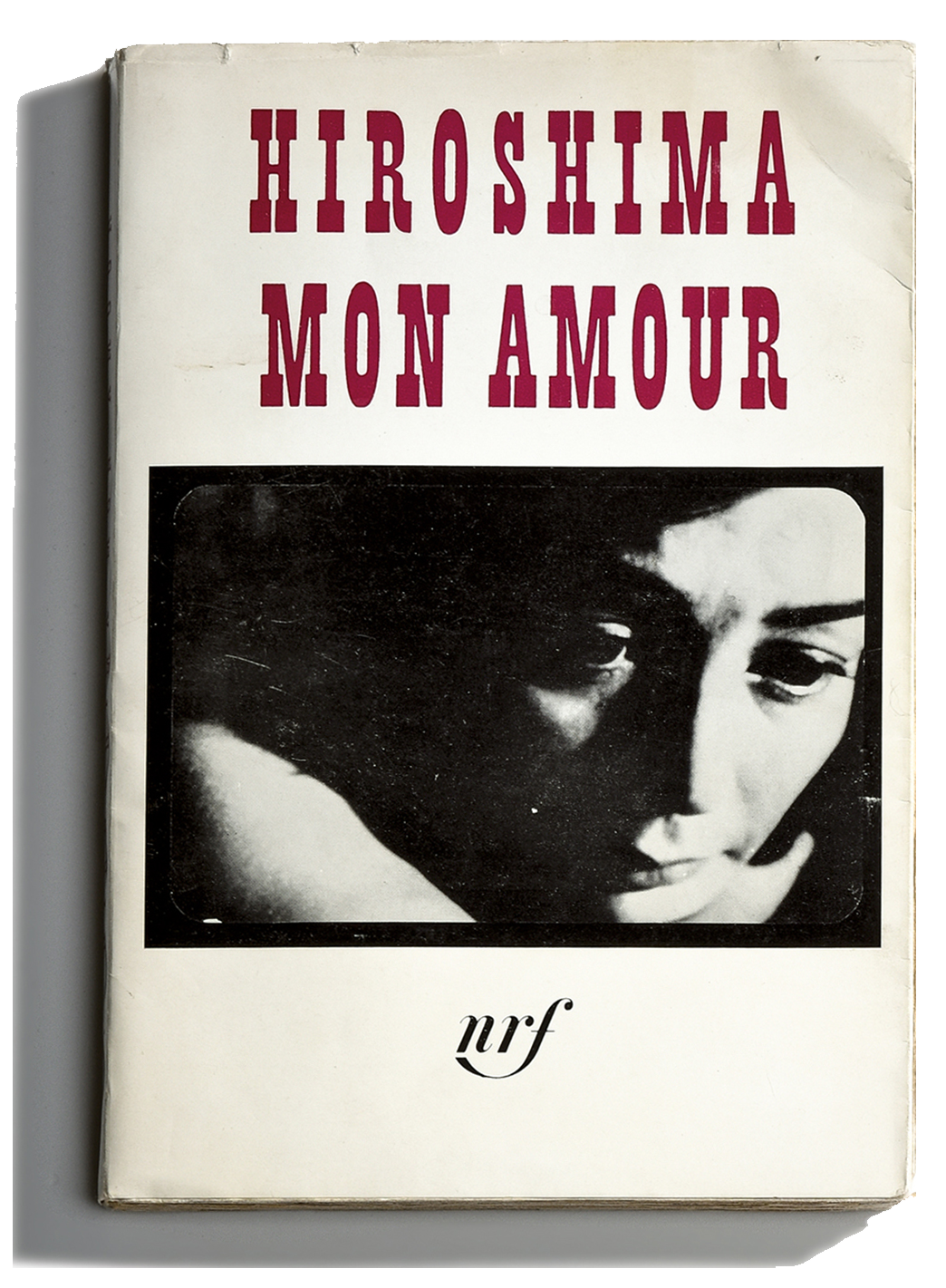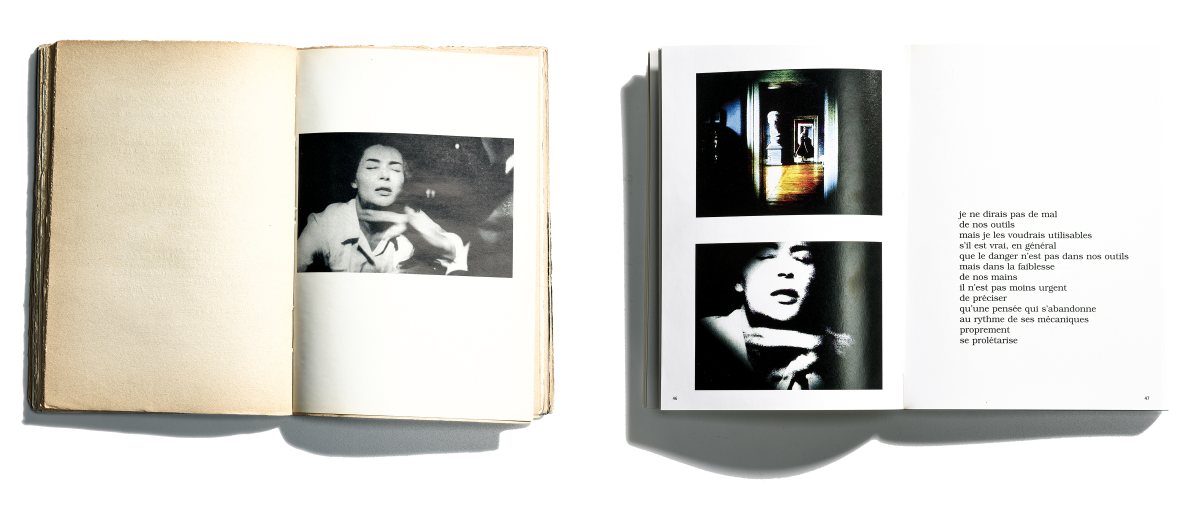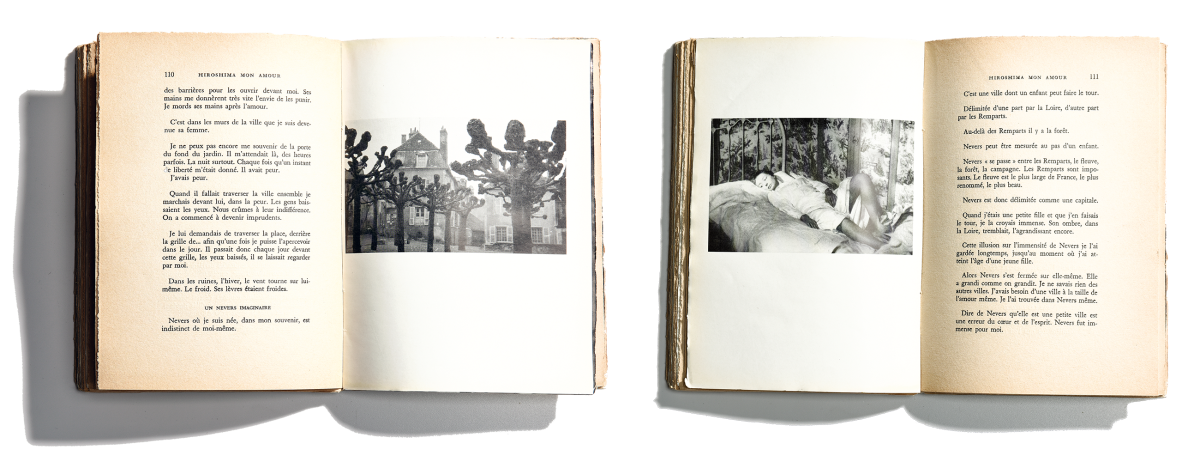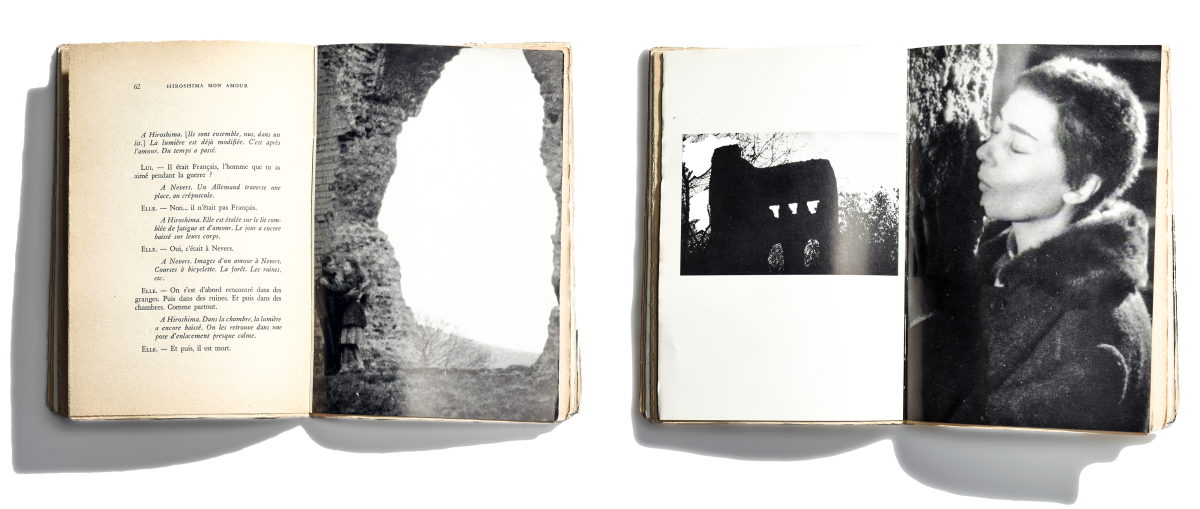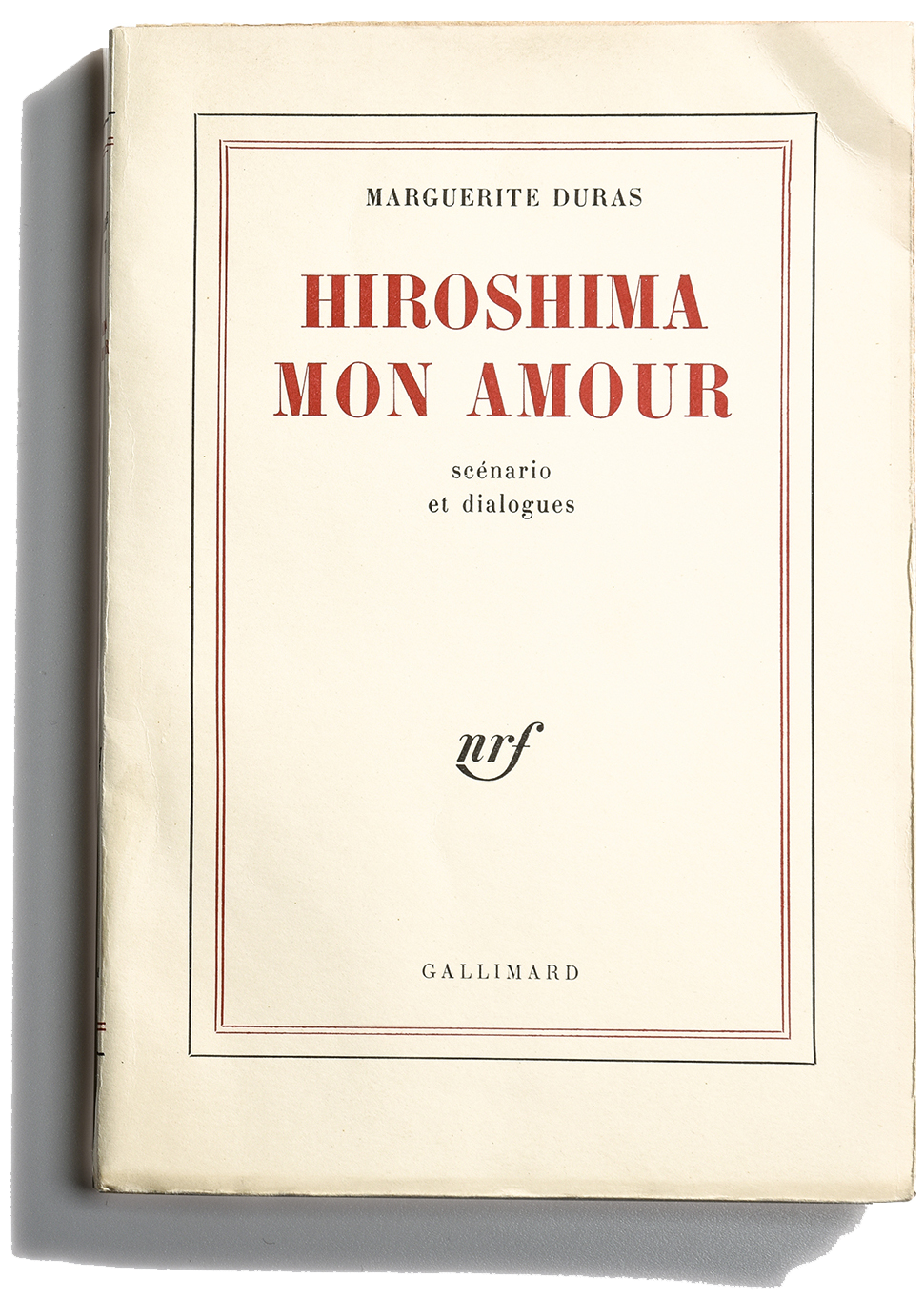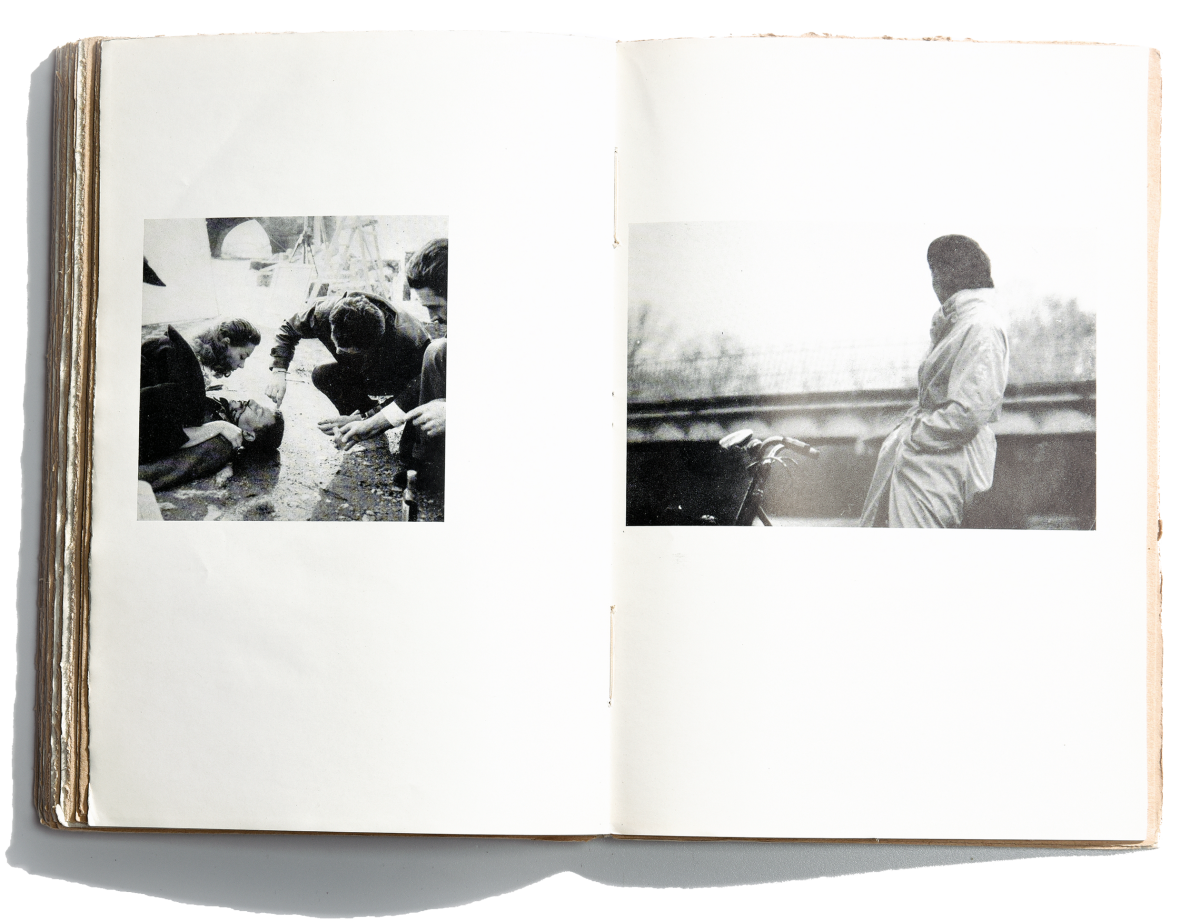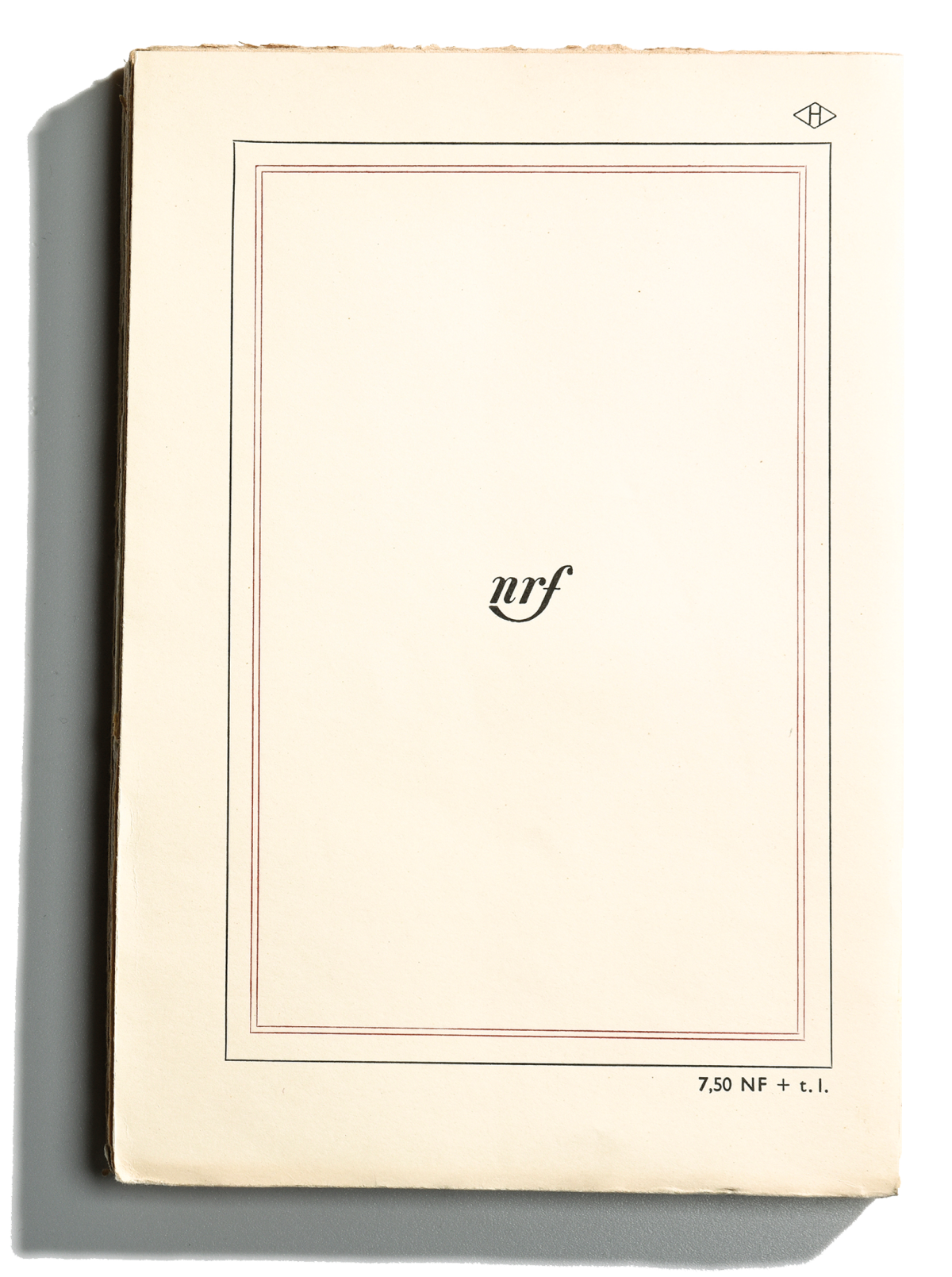
From film to book. Hiroshima in the ‘Blanche’. In the prehistory of “Histoire(s) du cinema” of Jean-Luc Godard
What enigmatic relations of convergence and divergence are woven between literature and cinema? What secret devices aesthetically connect a film, its script-book and the editorial design of that book? These and other questions arise and unfold their singular charm in the pen of Paule Palacios-Dalens, an inquisitive Parisian designer equally passionate about book design, typography, literature and cinema. Her detailed tour begins with “Hiroshima Mon amour”, the famous film by Alain Resnais and scripted by Marguerite Duras. Only for equally passionate and curious readers, here is the translation of a revealing essay by Paule, originally published as “Hiroshima dans la Blanche. Marguerite Duras’s introduction to cinema” by the independent label 202 éditions, then in the French online cinema magazine Débordements. A gourmet delight for lovers of cinema, literature and design.
Front cover of Hiroshima mon amour [Gallimard, 1960]. Photo: Nathalie Guyon.
Hiroshima mon amour, written by Marguerite Duras and directed by Alain Resnais, “was a cinematic shock whose repercussions continue to this day” 1 If it is possible to gauge the extent of this through the many texts by film critics that have paid tribute to him, the publication of the screenplay in Gallimard’s famous “Blanche” is a remarkable manifestation of this, illustrating the scope of the transgression that this aesthetic event represented.
Written in 1958, the screenplay Hiroshima mon amour marked Marguerite Duras’s entry into the world of cinema. Twenty months later, when it was published by Gallimard, the screenplay became a new literary genre. The layout of the book, which is classic and unobtrusive and in keeping with the visual principles of the collection, is exceptional in that it contains photographs alongside the text. Like the appendices recounting the genesis of the film, the relationship between the text and the image reveals, like a sensitive surface, the foundations of his cinema in the making. In many ways, this book of origins is a graphic beacon for Histoire(s) du cinéma by Jean-Luc Godard, a major publishing venture published forty years later in the same collection.
The power of books
“They were alive, they spoke to me (...) Isn’t that a strange thing to say, when you think that books are made of signs and symbols” It was in these powerful terms that Henry Miller evoked the books of his life 2 The book Hiroshima mon amour, in its first edition published in Gallimard’s ‘Blanche’ series in December 1960, is just as compelling a summons. “How could I have suspected that you were the size of my own body? I like you. What an event. I like you” says the woman from Nevers. And what better way to get away from both the text and the film – “which has become a double classic in the history of cinema and the history of literature” 3 than to approach it from its physical side, with its weight and matter, inscribed in the thickness of time, to grasp what is still pulsating, so intensely, in these printed pages?
“Something has taken place that has inscribed itself, with all the force of its presence, in the order of thought” 4 says Nathalie Léger, to define the place of the archive. “It is what remains (...) but it is also, as the etymology says, what begins.” And this book, in particular, calls for such an unfolding. The supplements to the dialogue that are the appendices 5 form an indissociable whole that reveals “the literary part of the artistic process that led to the cinematographic work” 6  says Robert Harvey. The modus operandi adopted in unison by Resnais and Duras in developing the film and writing the screenplay is formulated in these terms by its author: ‘the work I did on this subterranean continuity of the film is at least as important as the work I did on the continuity itself. What is shown is doubled by what is not shown. 7 How do these different continuities coexist on the page? What graphic layout has been adopted to make them present? How do the text and photography respond to each other? Following Duras’ trail, but a trail that is “still fresh, barely made, when the work vibrates with this beautiful uncertainty” 8 In the words of Alain Bergala, referring to the work of one of his contemporaries - Jean-Luc Godard - this is the path that will be explored to make explicit in the graphic form of Hiroshima the features that will characterise the cinema of Marguerite Duras. Taking this diversions via Godard, given the singular and sometimes shared paths that lead these two authors from print to cinematic expression, seems particularly fruitful. From film to book and from book to film, Duras and Godard take paths that are sometimes parallel and sometimes reversed. When confronted, they provide keys to deciphering what lies beneath the surface of apparent meaning.
Writing for the cinema
On this question of imprint and inscription, Marguerite Duras used these words to comment on her own text: “For me”, she said, “Hiroshima is a novel written on film” 9 In 1987, in a dialogue between the director and the writer that was to become a television landmark 10 — the meeting, according to Godard, of ‘two rocks’, one from literature, the other from cinema — the filmmaker agreed with her, recognising her rare status as writer-filmmaker: a small circle he called “the gang of four”, in which Duras – the only woman – figures alongside veterans Jean Cocteau, Sacha Guitry and Marcel Pagnol, all three from a generation before Godard’s and already buried at the time of the interview. Was this a provocation on the part of the filmmaker to contradict his peers? Nevertheless, the recognition of her cinematographic work and the authority he confers on Duras – writer and woman – deserve to be underlined.
Screenshots from tv dialogue between Duras & Godard, 1987.
Taking as its starting point Hiroshima mon amour, a source book in more ways than one, which reveals in its pages the beginnings of its author’s cinema in the making, takes on its full meaning in the light of that essential horizon line that is Histoire(s) du cinéma, which was also published in four volumes in the ‘Blanche’ series in 1998, almost forty years apart.
In addition to their common membership of the Gallimard collection, the two works have as points of convergence cinema and history, war and love, and through their poetic narrative form and their text/image relationship maintain a singularly attuned alliance between memory and oblivion, erasure and presence.
When the seventh art is being read
Although screenplays were published in the specialist press in the 1950s, the publication of Hiroshima, accompanied by appendices, was in 1960 “a sign of the growing prestige conferred on the work of writers for the cinema”, 11 marking a new position in publishing with regard to the seventh art. In the “Blanche” collection, Marguerite Duras published two other screenplays: Une aussi longue absence (1961), co-written with Gérard Jarlot, and Nathalie Granger followed by La Femme du Gange (1973).
1st covers of Une aussi longue absence [Gallimard, 1961] and Nathalie Granger followed by La Femme du Gange [Gallimard, 1973]. Photos: Nathalie Guyon.
The transition from film to book for Hiroshima mon amour took twenty months, as indicated by the print proof dated 6 December 1960, the film having been presented at Cannes in the spring of 1959. The gestation period was long enough for the publishing house, through its brand new artistic director, Robert Massin, to carry out “a sovereign and quiet revolution”. 12 In all its restraint, the upheaval in graphic form introduced by this Gallimard publication demonstrates the publishing house’s ability to embrace the zeitgeist by incorporating the momentum of the New Wave, which François Truffaut claimed at the Festival had begun with Hiroshima, and other films such as Jean-Luc Godard's À bout de souffle (Breathless).